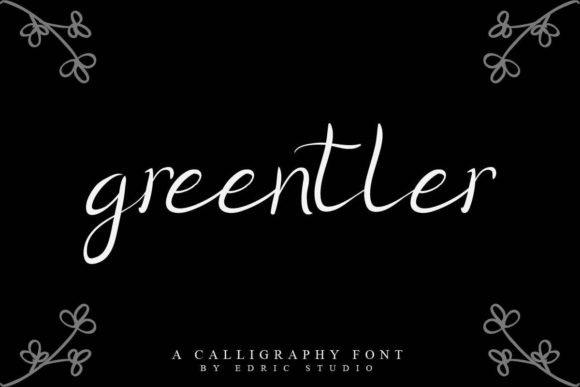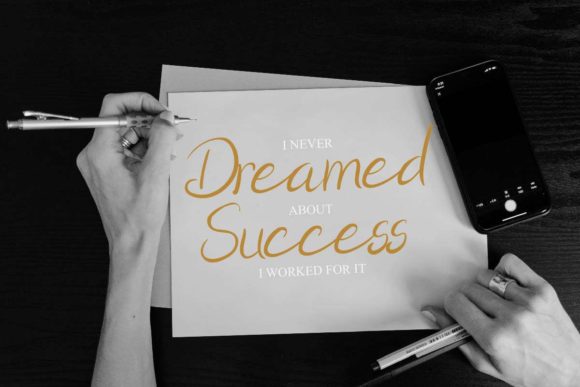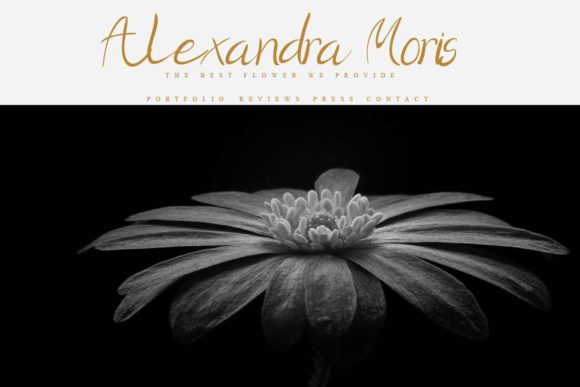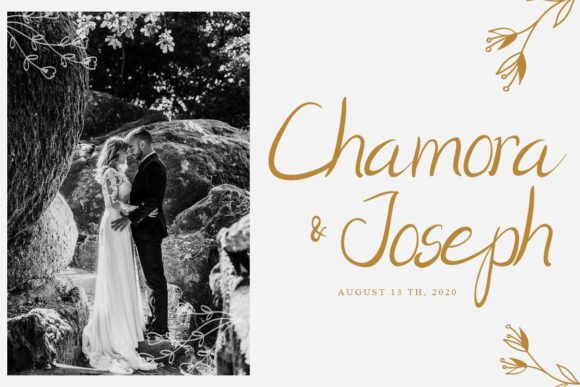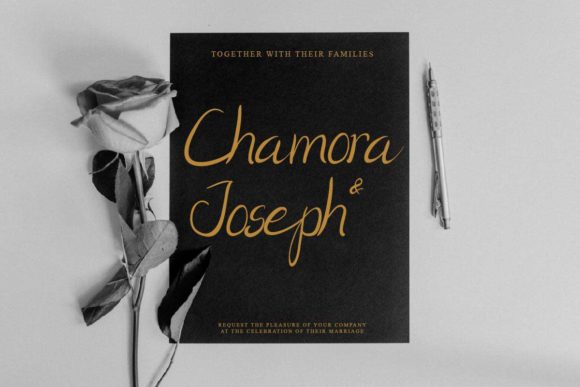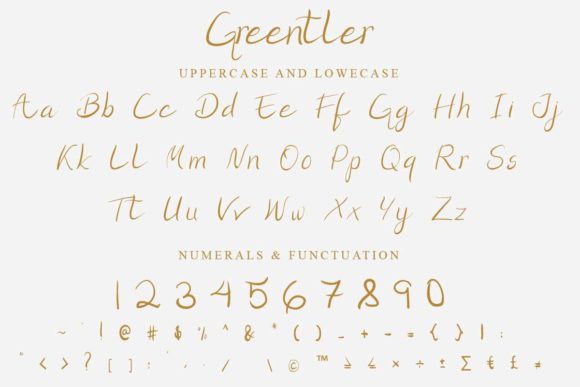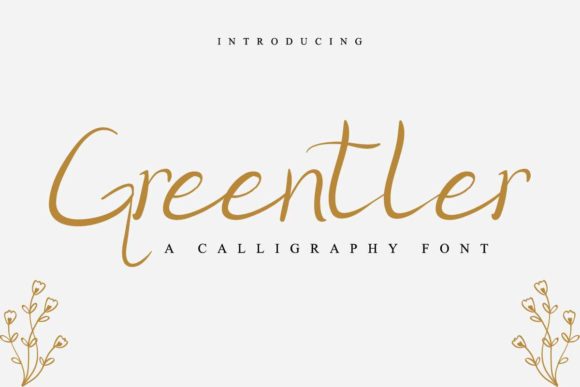
Introducing Greentler Font: Elevate Your Designs with Elegance and Charm
Are you on the hunt for a font that exudes both charm and elegance? Look no further than Greentler Font! This beautiful handwritten font is designed to take your design projects to the next level, making it perfect for a wide range of applications, from branding and headings to wedding designs, invitations, signatures, logos, labels, and more.
The Characteristics of Greentler Font
Greentler Font is a unique and stylish handwritten font that boasts a distinctive charm. Its elegant strokes and beautiful lettering make it an excellent choice for designers and crafters looking to add a touch of sophistication to their work. The font’s versatility allows it to be used in various design projects, making it an excellent addition to any design library.
What Makes Greentler Font Stand Out?
• Charming and Elegant: Greentler Font’s unique lettering style gives it a charming and elegant feel, making it perfect for designs that require a touch of sophistication.
• Handwritten with Love: The font’s handwritten nature gives it a personal and intimate feel, making it ideal for wedding designs, invitations, and other special occasions.
• Versatile: Greentler Font can be used in a wide range of design projects, from branding and headings to logos, labels, and more.
• Easy to Read: The font’s clear and legible design ensures that your message is conveyed effectively, making it perfect for designs that require a high level of readability.
Greentler Font is an excellent choice for designers and crafters looking to elevate their designs to the highest level. Whether you’re working on a branding project, creating wedding designs, or crafting invitations, this font is sure to impress. Its unique and elegant style will add a touch of sophistication to your work, setting it apart from the rest.
Use Cases for Greentler Font
• Branding: Use Greentler Font to create stunning brand identities that exude elegance and sophistication.
• Wedding Designs: Add a touch of romance to your wedding designs with Greentler Font’s beautiful handwritten style.
• Invitations: Create stunning invitations that set the tone for any special occasion with Greentler Font.
• Signatures: Use Greentler Font to create elegant signatures that make a lasting impression.
• Logos: Create unique and memorable logos that showcase your brand’s personality with Greentler Font.
• Labels: Add a touch of elegance to your labels with Greentler Font’s beautiful handwritten style.
Tips for Using Greentler Font
• Pair it with Other Fonts: Experiment with pairing Greentler Font with other fonts to create stunning contrast and visual interest.
• Use it for Headings: Use Greentler Font for headings and titles to add a touch of elegance to your designs.
• Experiment with Colors: Try out different colors and textures to add depth and visual interest to your designs.
Greentler Font is a beautiful and elegant handwritten font that is sure to elevate your design projects to the highest level. Its charming and sophisticated style makes it perfect for a wide range of applications, from branding and headings to wedding designs, invitations, signatures, logos, labels, and more. With its versatility, ease of use, and stunning design, Greentler Font is an excellent addition to any design library.